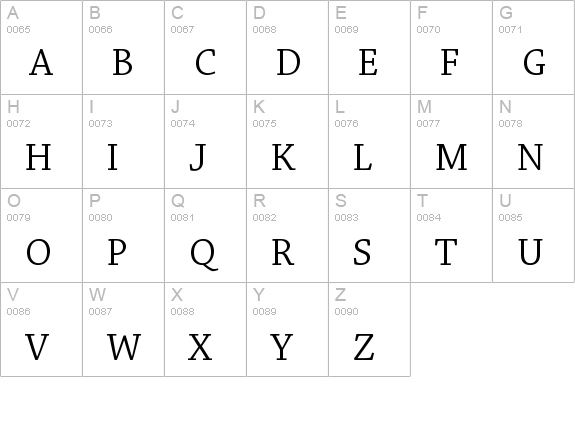
Chaparral Pro Subhead font is a versatile and elegant typeface that is perfect for adding sophistication and style to any design project. With its clean lines and modern yet timeless look, this font is ideal for use in headings, subheadings, and other display text. What sets Chaparral Pro Subhead font apart is that it is available for free download at FontsMarket.com. This means that you can easily access this high-quality font without any cost, making it a valuable asset for designers, creatives, and anyone looking to enhance their projects with a touch of class. Whether you're working on a website, a poster, a brochure, or any other creative endeavor, Chaparral Pro Subhead font is sure to elevate your design and make a lasting impression. Download it for free today and see for yourself the difference this font can make in your projects.